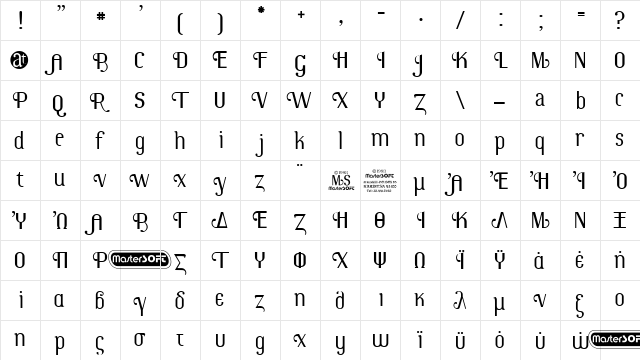
MSCaprice Normal
Design Context for MSCaprice Typeface
MSCaprice takes a measured approach to typography — its balanced proportions and neutral character make it a reliable workhorse for both digital and print work.